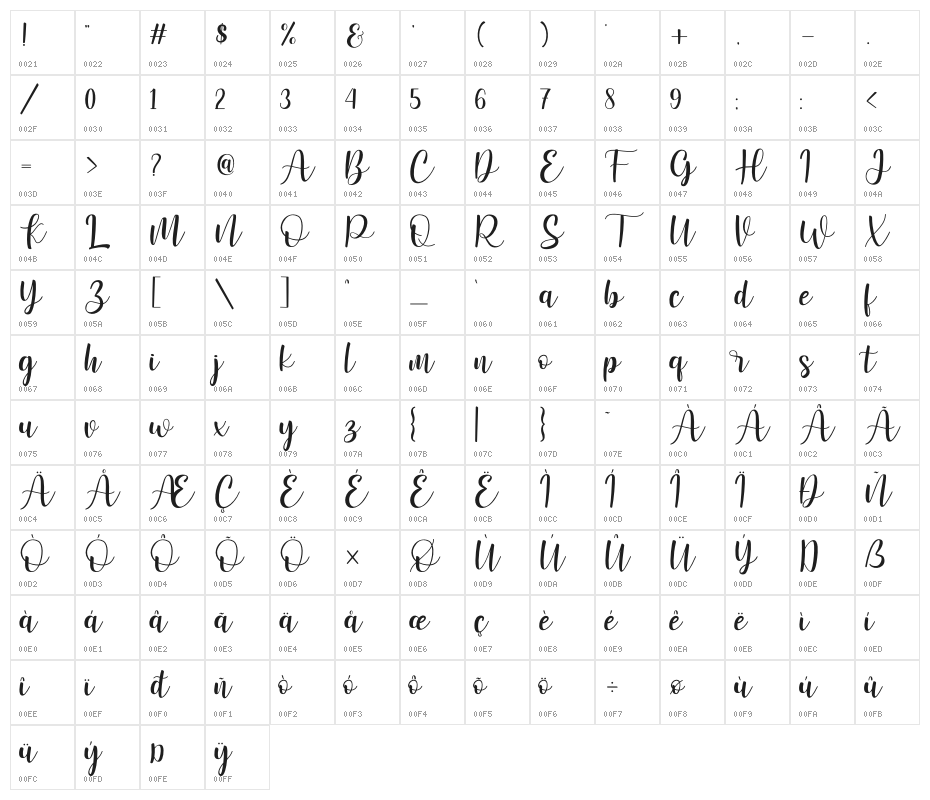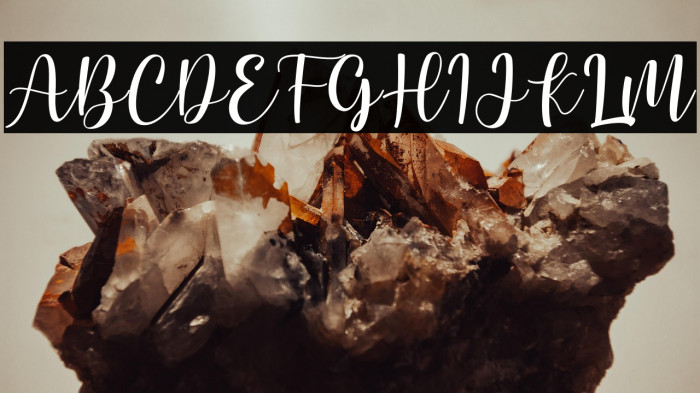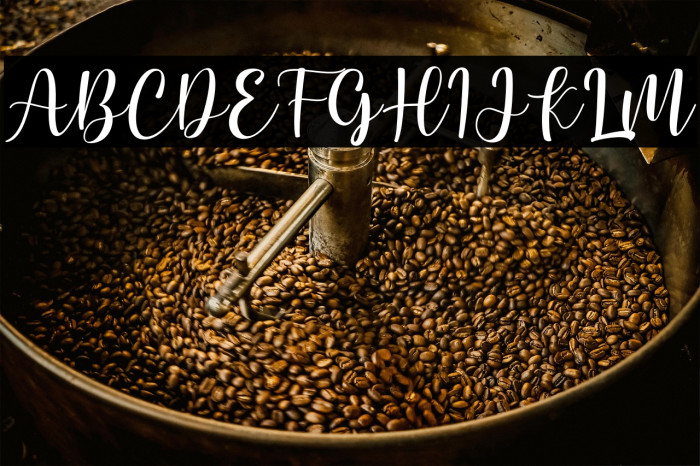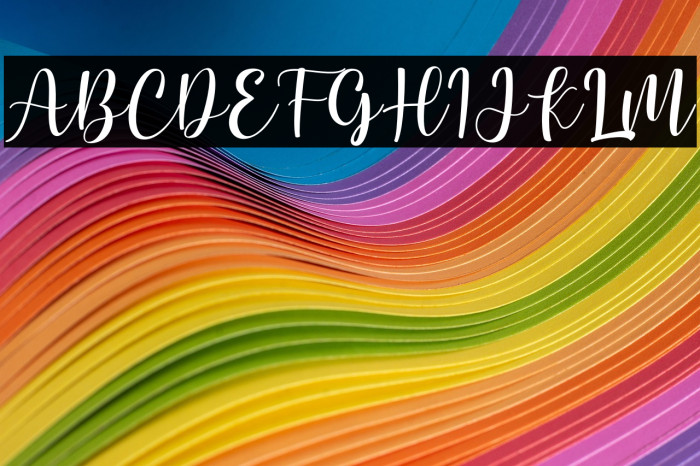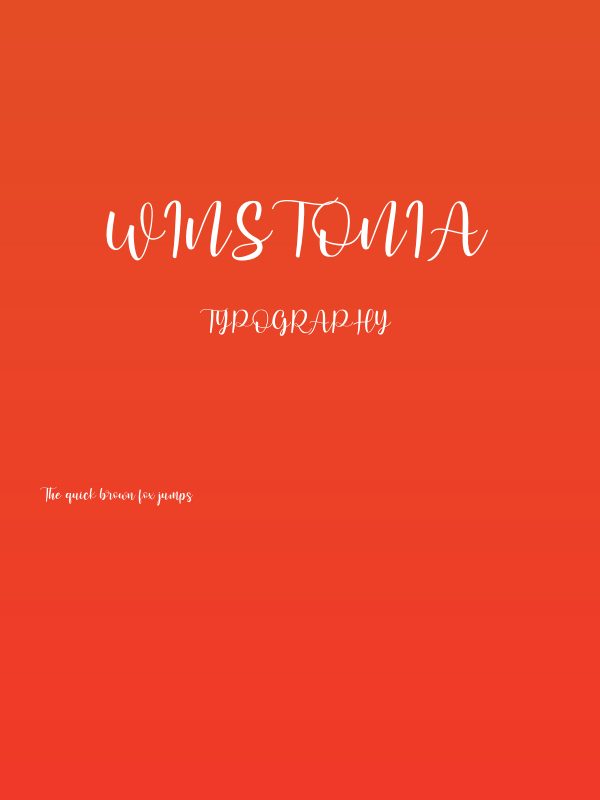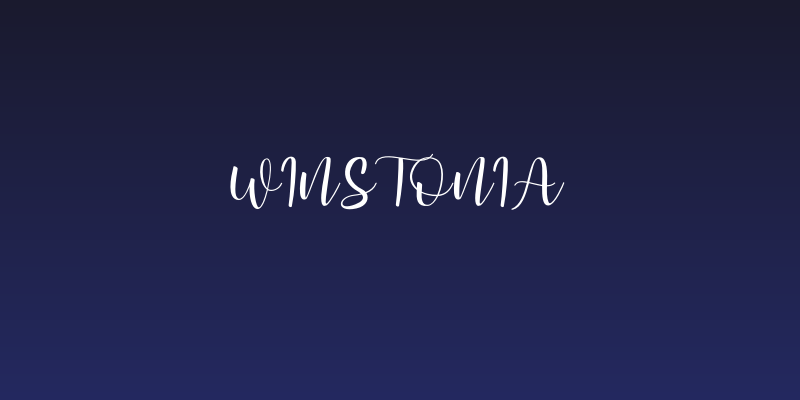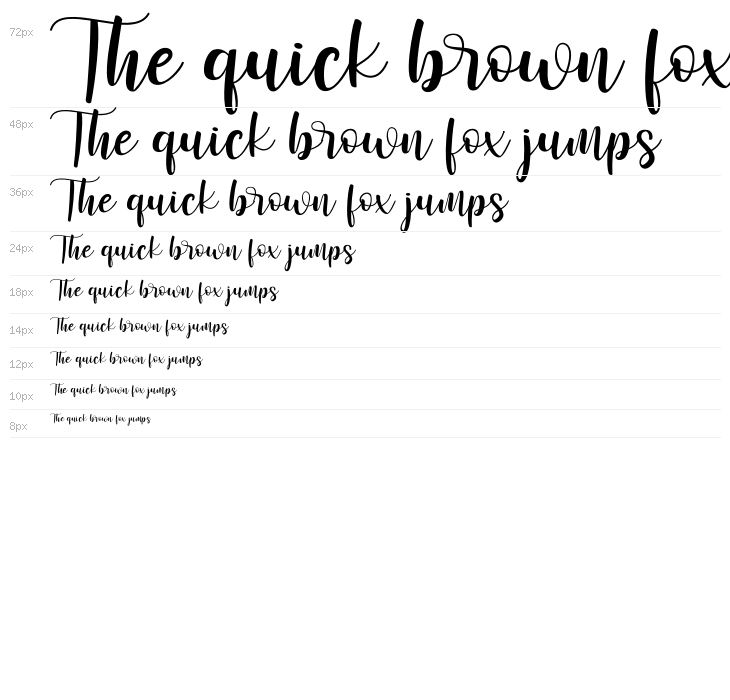
Winstonia Font
Winstonia Description
This font features a flowing, cursive style with elegant loops and swashes, giving it a sophisticated and artistic appearance. The uppercase letters are bold and prominent, with a distinct flair that adds a touch of drama. The lowercase letters maintain a consistent flow, with smooth connections between characters, enhancing readability while preserving the decorative nature. The numerals are clear and bold, matching the overall style of the alphabet. Special characters are thoughtfully designed to complement the font's aesthetic, making it versatile for various uses.